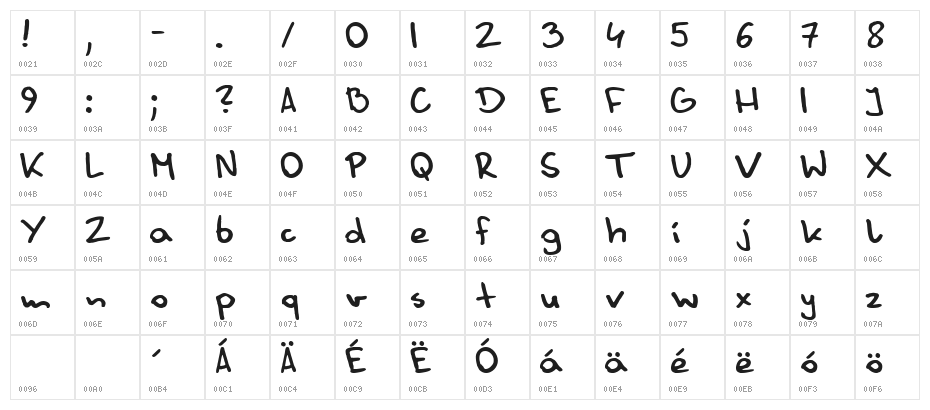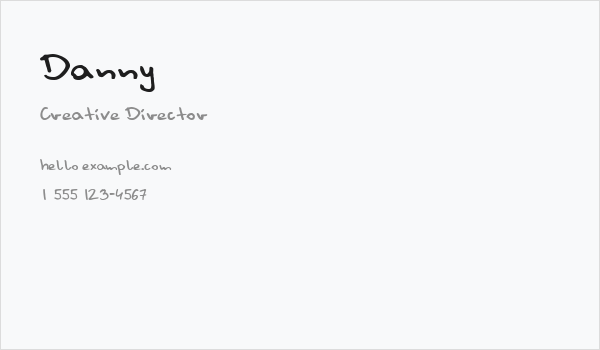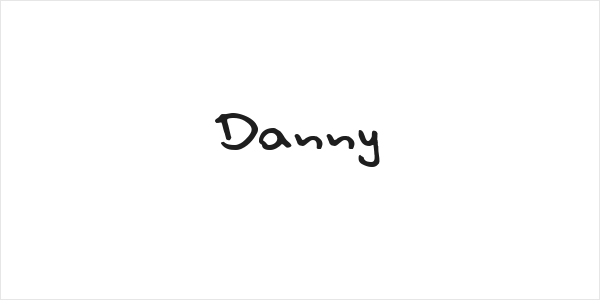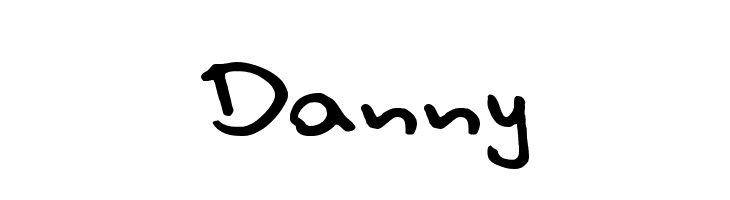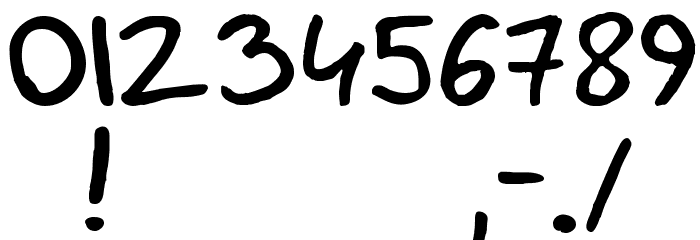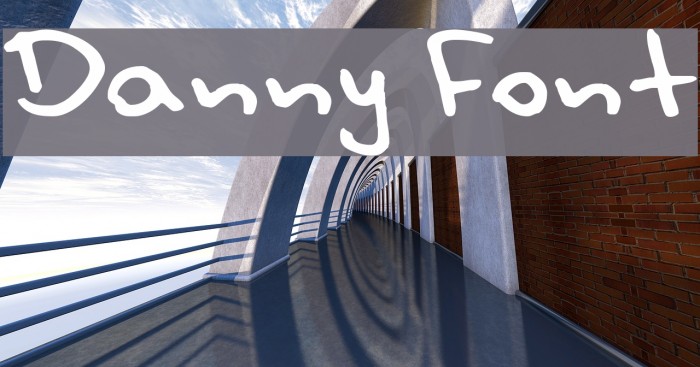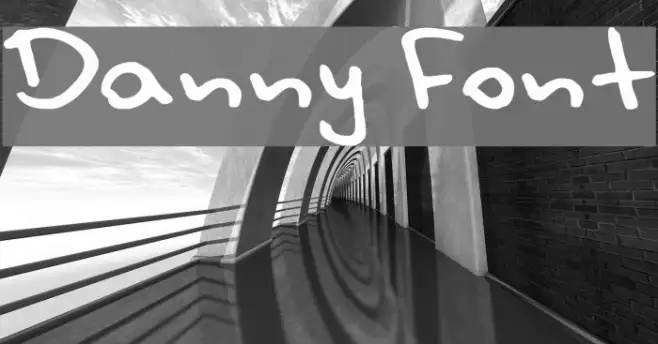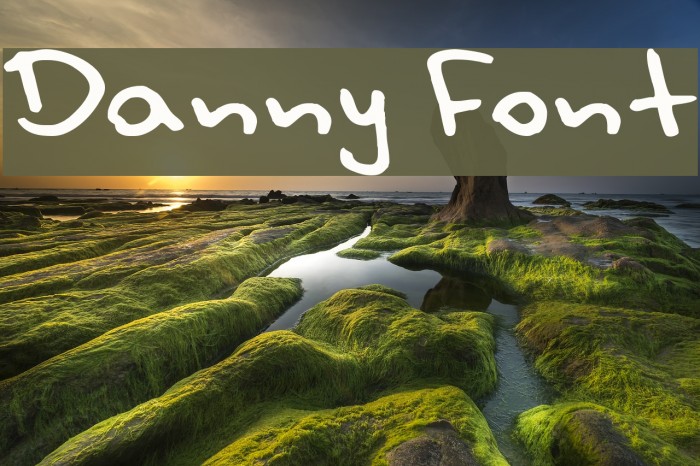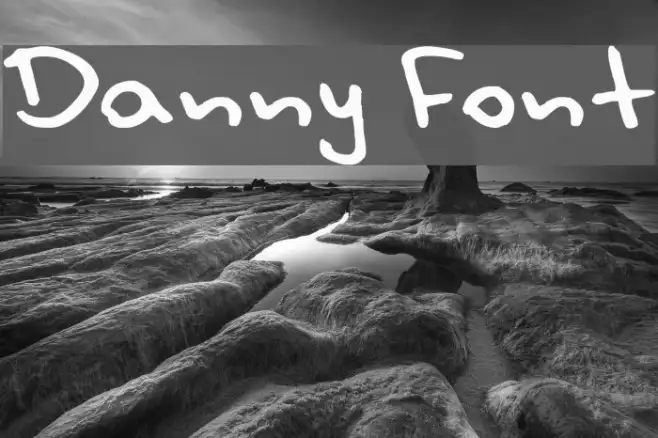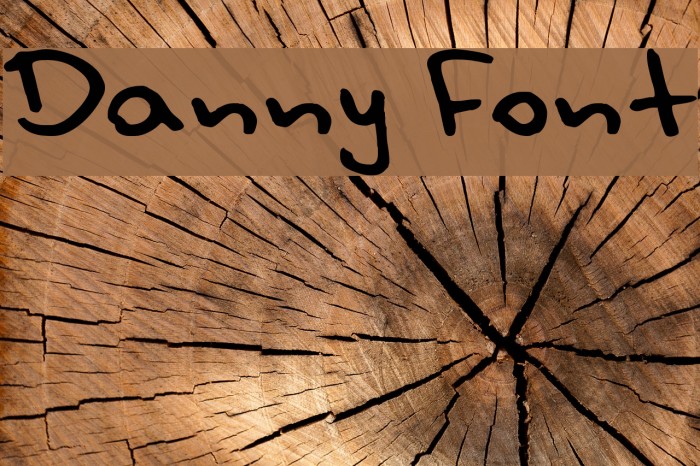
Danny Font
Danny Description
This playful and informal font features a handwritten style with a casual and friendly appearance. The letters are bold and rounded, giving a sense of approachability and warmth. The strokes are uneven, mimicking the natural flow of handwriting, which adds a personal touch. The font maintains consistent thickness throughout, with slightly irregular character shapes that enhance its charm. It is well-suited for projects that require a human touch, such as children's books, greeting cards, or casual branding. The numbers and special characters are crafted with the same playful style, ensuring a cohesive look across all text elements.
| Proposed Projects | Ideal for children's books, greeting cards, casual branding, and playful designs. |